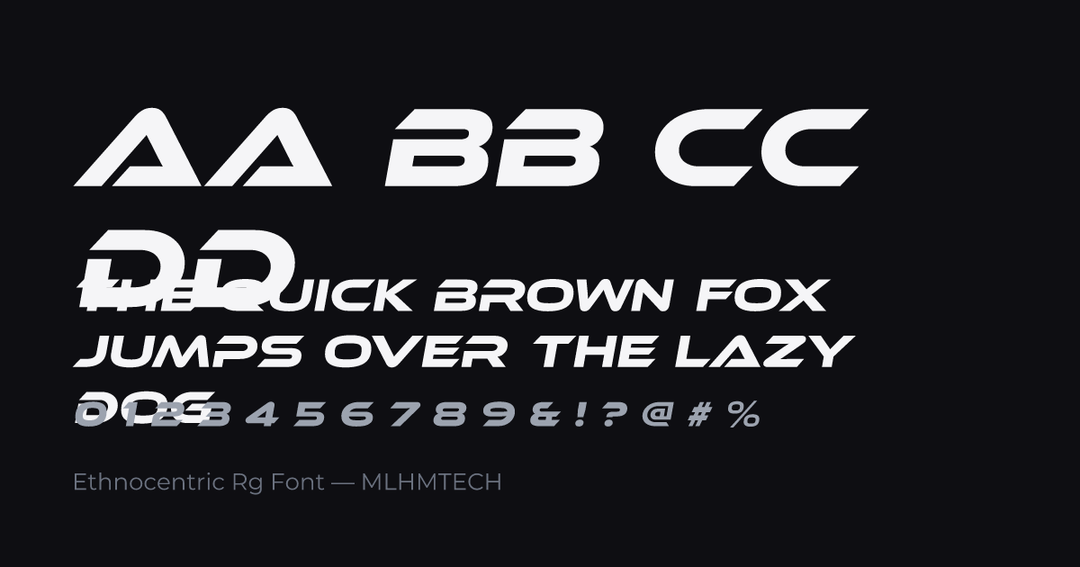
Ethnocentric Rg Font
Ethnocentric Rg is a bold, futuristic display font with a sci-fi edge. Ideal for titles, logos, and tech-themed projects.
Ethnocentric Rg is a striking display font that exudes a futuristic, sci-fi vibe. Its geometric letterforms and sharp angles make it perfect for headlines, logos, and any project that needs a tech-forward look.
Whether you're designing a gaming interface, a movie poster, or a tech startup logo, Ethnocentric Rg will add a distinctive, modern edge to your work.